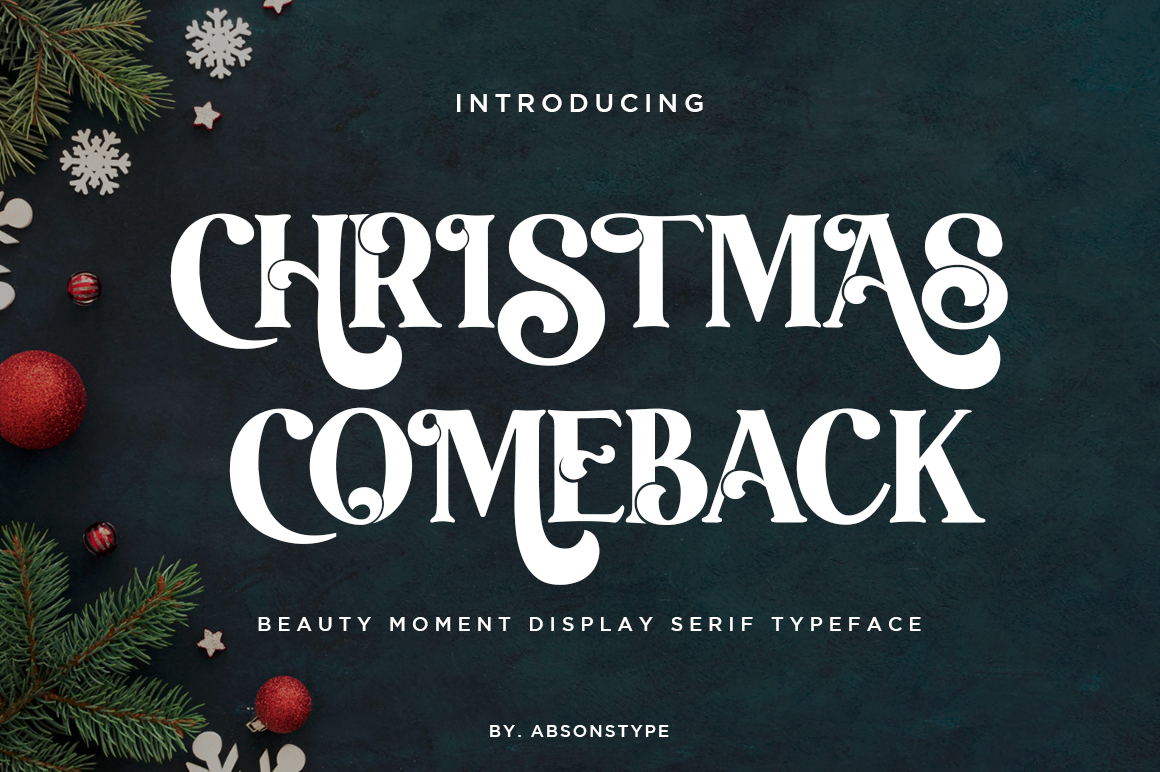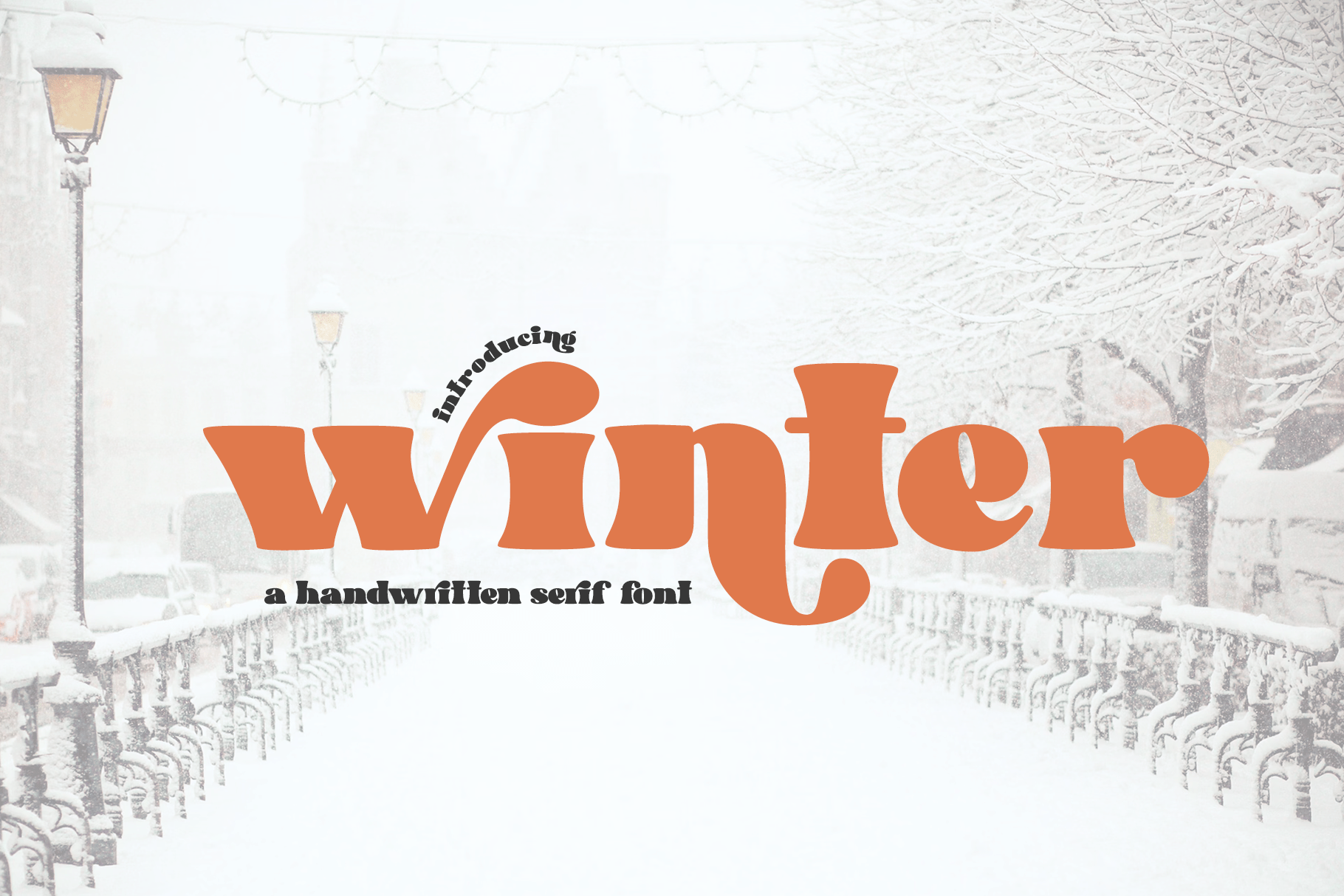
Retro fonts are timeless and versatile typefaces that evoke a sense of nostalgia, blending vintage elements with modern design trends. They are perfect for a wide range of projects, from branding and posters to websites and packaging. With their unique blend of bold shapes, playful curves, and distinctive details, retro fonts can add personality and charm to any design, making them a great choice for projects aiming to capture both a nostalgic feel and contemporary appeal. Whether for a retro-themed event, creative campaigns, or casual branding, these fonts adapt to various styles and mediums effortlessly.
Looking for the perfect retro font? With style fonts from sans-serif to hand-written, we guarantee you’ll find the perfect match for your projects
Christmas Comeback is a serif font that combines sophistication with a retro edge. Its high contrast strokes and rounded serifs give it a classic, luxurious appearance. This font works beautifully for formal holiday invitations, Christmas cards, or elegant event posters. Christmas Comeback captures the timeless spirit of Christmas with a touch of vintage luxury, making it an ideal choice for upscale events or holiday gatherings.
Winter is a beautiful retro serif font that balances boldness with elegance. With its refined and stylish letterforms, Winter is ideal for creating a sophisticated, vintage look for your any projects event designs. It features ligatures and alternates to support your designs. Use them for modern designs like branding, logos, covers, posters, etc.
Bubble fonts are characterized by their rounded, soft, and inflated appearance, often resembling letters made from bubbles or balloons. They’re instantly eye-catching, making them ideal for headlines, titles, and anything meant to stand out. If you want your designs to be both playful and memorable, bubble fonts offer a unique and joyful touch.
Serif fonts are known for their small decorative lines or strokes at the end of the letters, which give them a refined, classic look. When these fonts are paired with alternates variations of certain characters that provide more style and flair they become even more dynamic and visually appealing. Here are some of the key advantages of using serif fonts with alternate characters in your designs.
When it comes to designing materials for your Designs, choosing the right font can make a world of difference in setting the tone and elevating your project. One standout option is decorative serif fonts that come with multiple alternates and ligatures. These fonts combine the timeless elegance of serif typography with intricate, artistic flourishes, making them perfect for capturing the festive spirit of the holiday season.
Kagestone is a captivating font that blends vintage and retro styles, offering a timeless charm to any design. With its bold, unique characters and nostalgic flair, it’s perfect for a wide variety of brand projects, from modern logos to creative campaigns. Whether you’re looking to evoke a sense of nostalgia or add a distinct, stylish edge to your branding, Kagestone delivers versatility and personality. Its strong yet approachable look makes it an ideal choice for creating memorable, standout designs across different industries and media.
When it comes to designing materials for your Designs, choosing the right font can make a world of difference in setting the tone and elevating your project. One standout option is decorative serif fonts that come with multiple alternates and ligatures. These fonts combine the timeless elegance of serif typography with intricate, artistic flourishes, making them perfect for capturing the festive spirit of the holiday season.
Alteron is a striking font that effortlessly combines vintage and retro styles with a classic touch, making it a perfect fit for any brand project. Its timeless design, featuring bold lines and distinctive curves, evokes a sense of nostalgia while maintaining modern appeal. Alteron’s versatility shines through in various applications, from logos and packaging to advertisements and websites, providing a sophisticated yet approachable aesthetic. Whether you’re aiming for a retro vibe or a refined, classic look, Alteron brings an unforgettable charm to your branding, making it ideal for projects of all kinds.
Avemon is a striking font that effortlessly combines vintage and retro styles with a classic touch, making it a perfect fit for any brand project. Its timeless design, featuring bold lines and distinctive curves, evokes a sense of nostalgia while maintaining modern appeal. Avemon’s versatility shines through in various applications, from logos and packaging to advertisements and websites, providing a sophisticated yet approachable aesthetic. Whether you’re aiming for a retro vibe or a refined, classic look, Avemon brings an unforgettable charm to your branding, making it ideal for projects of all kinds.